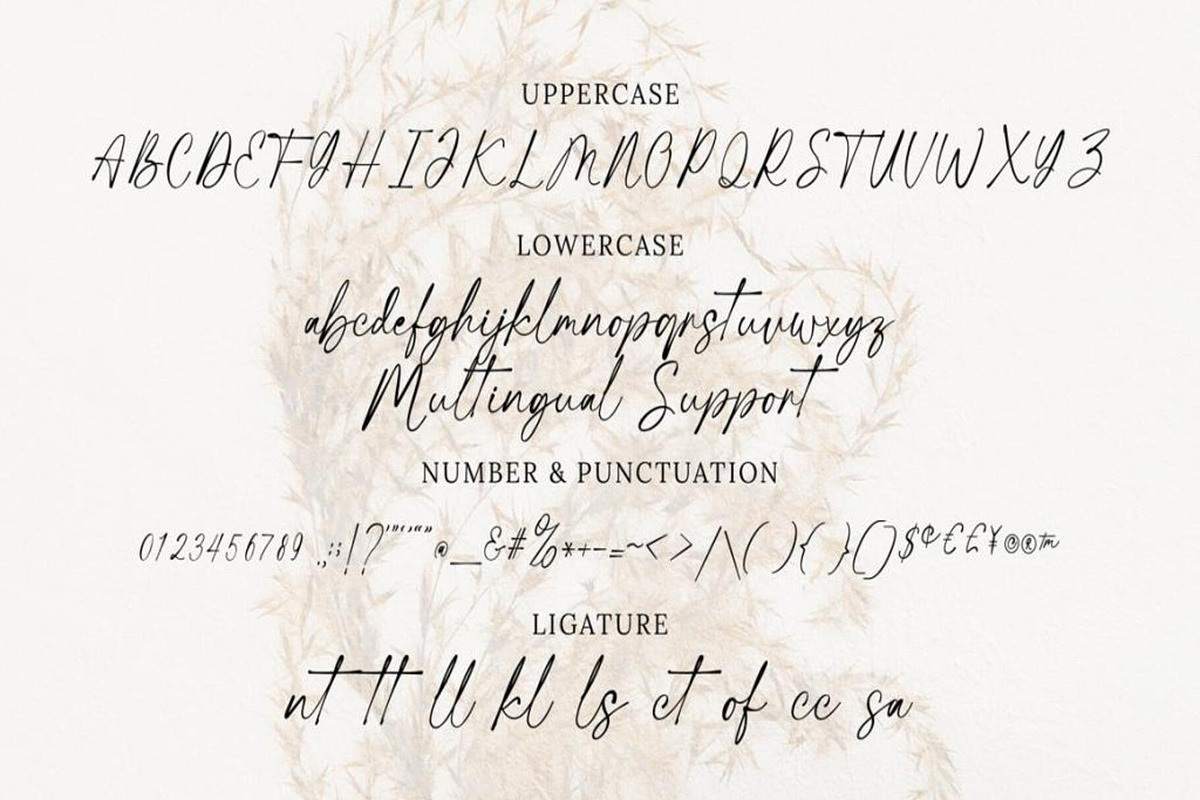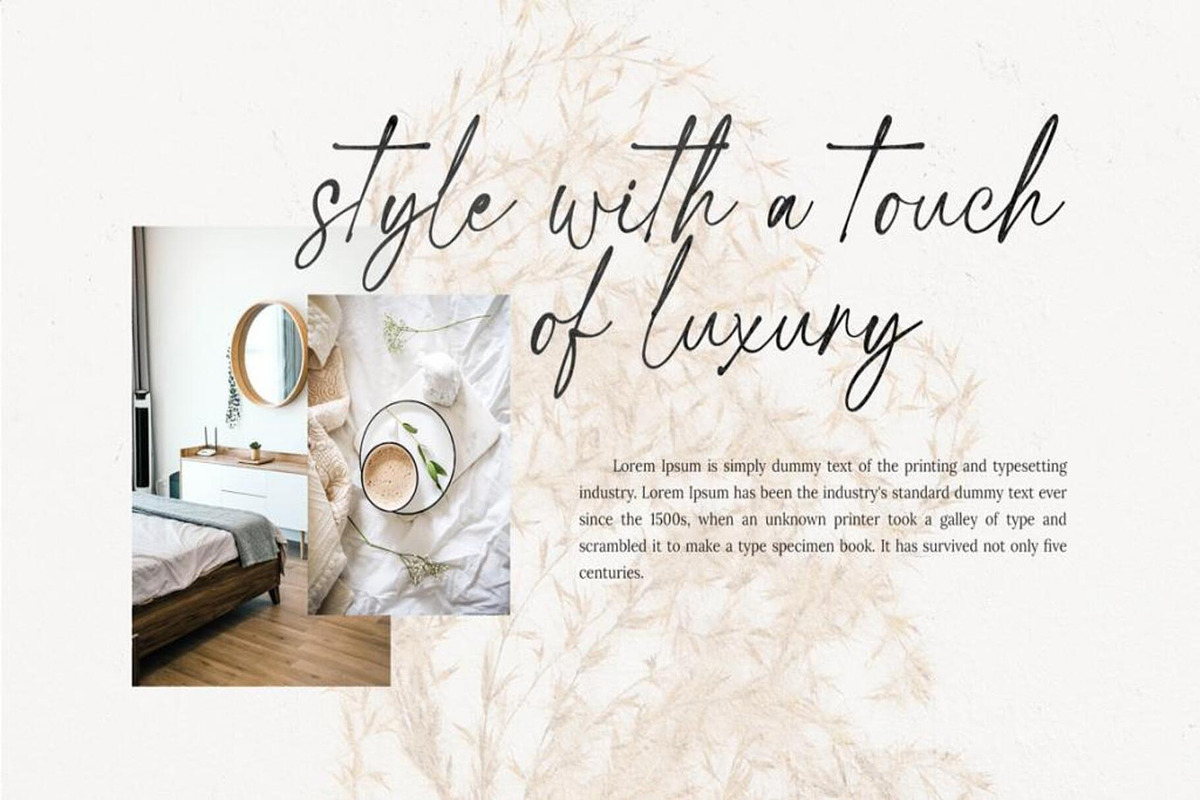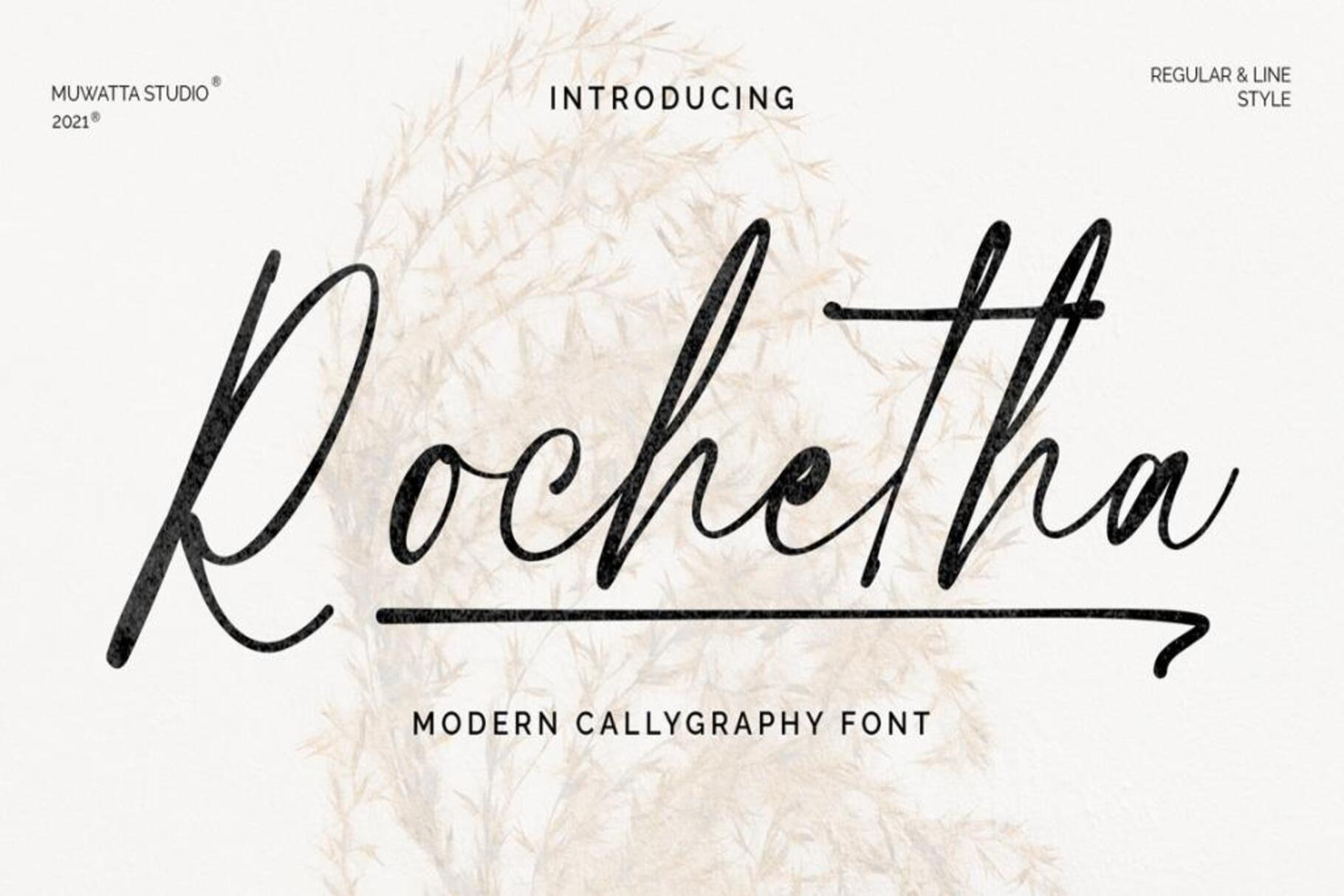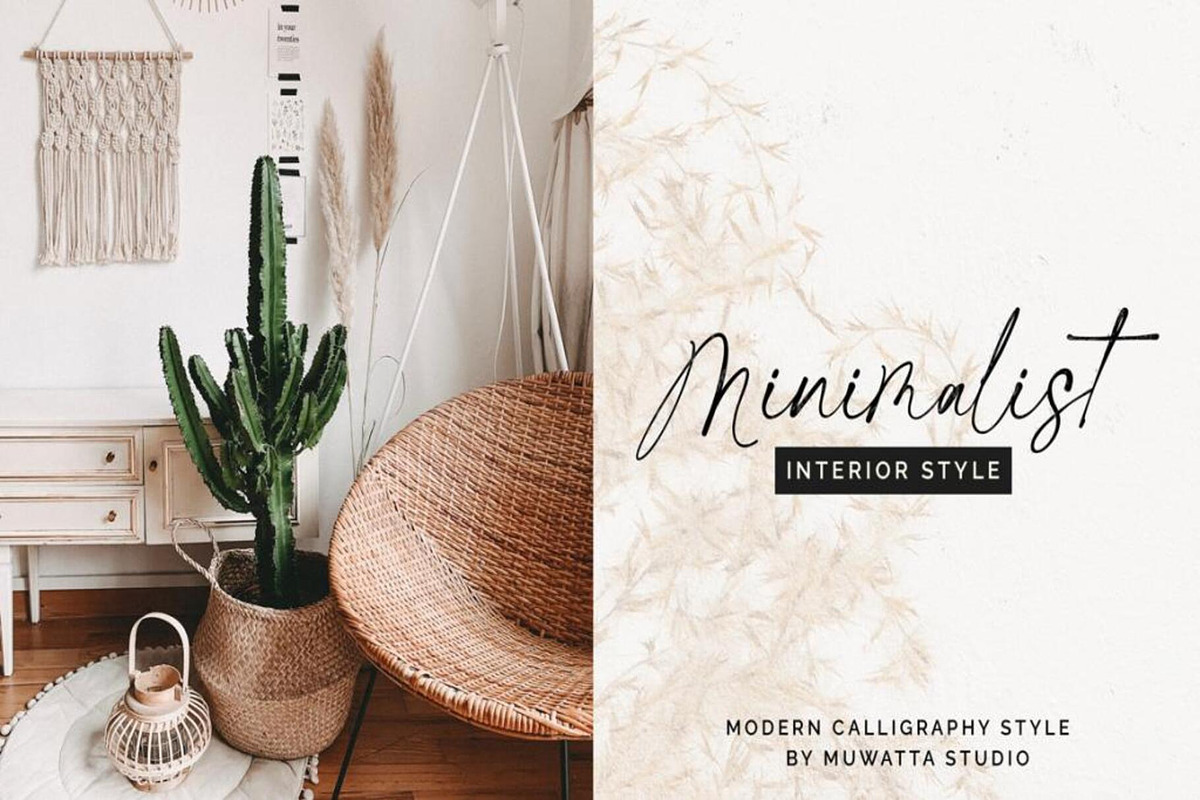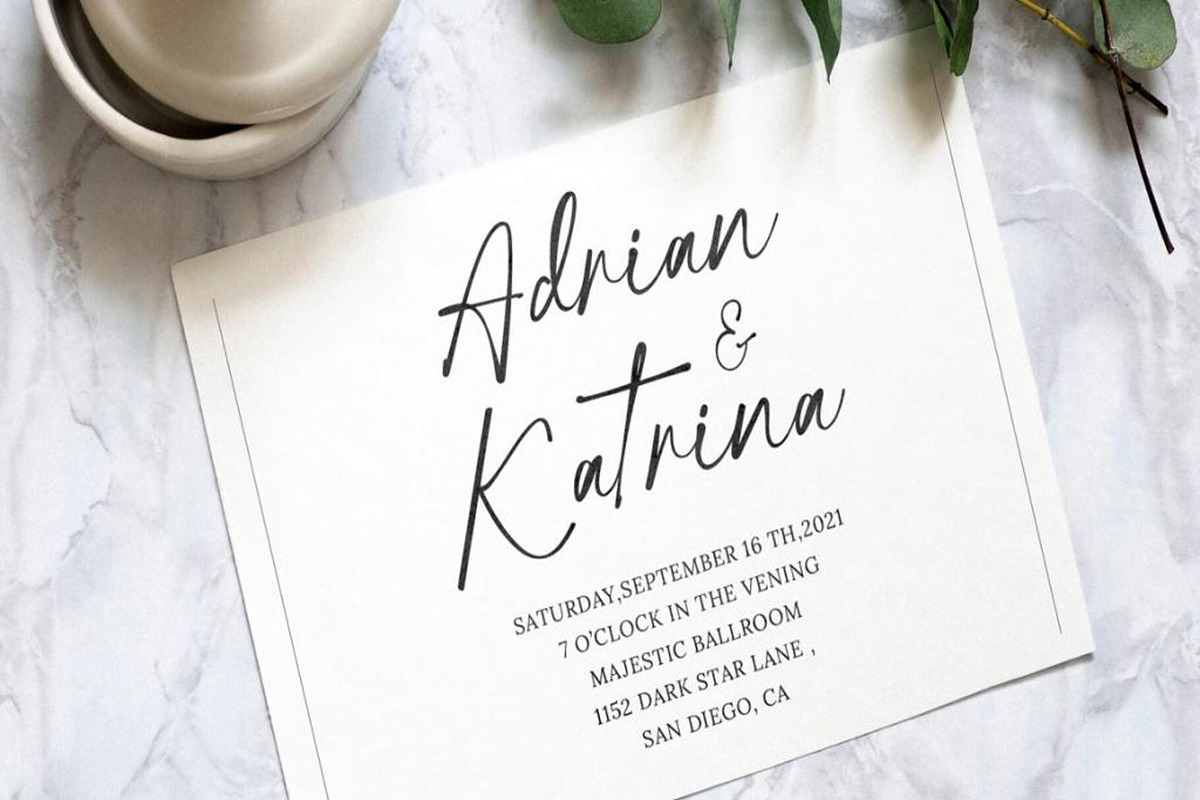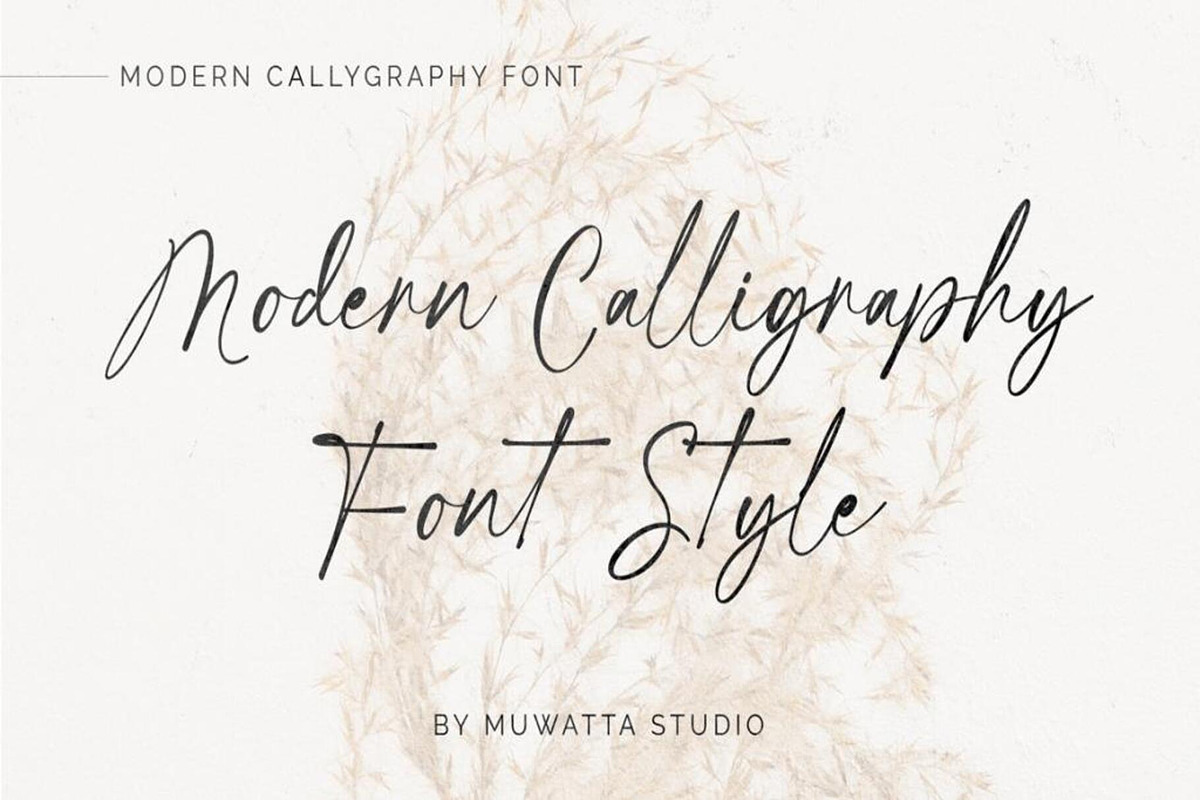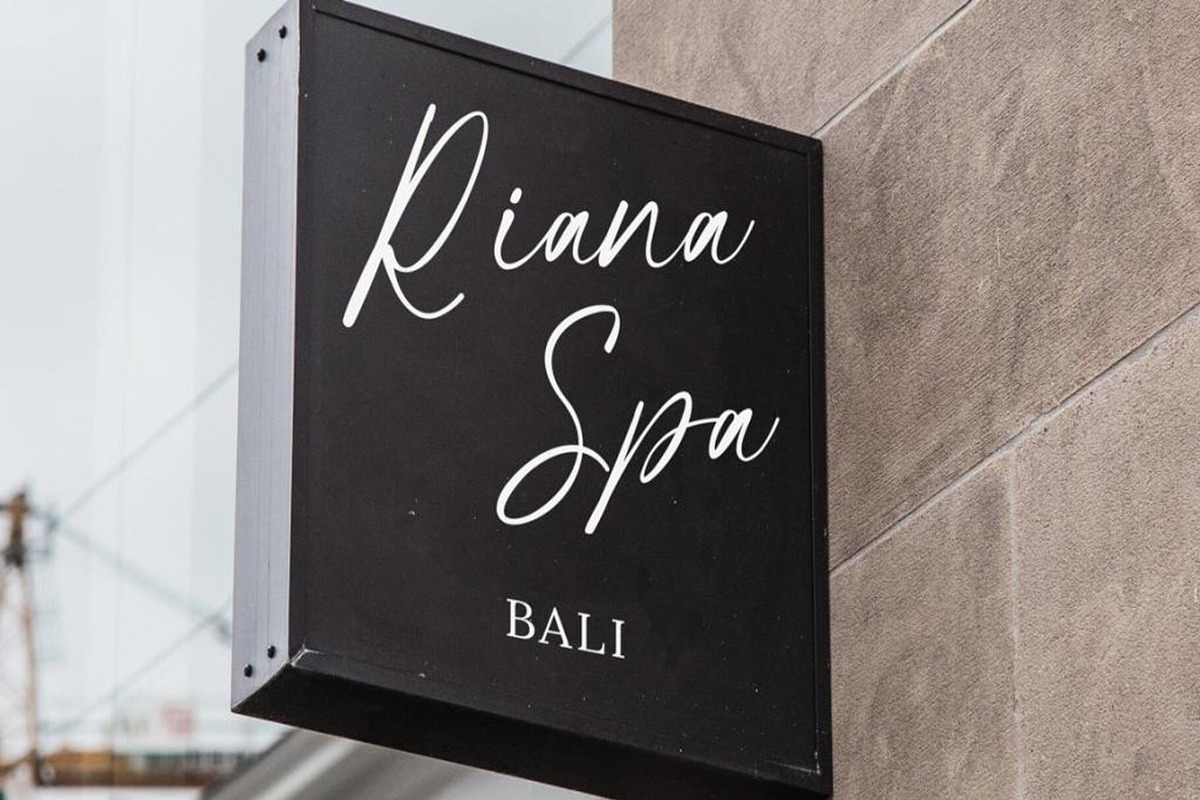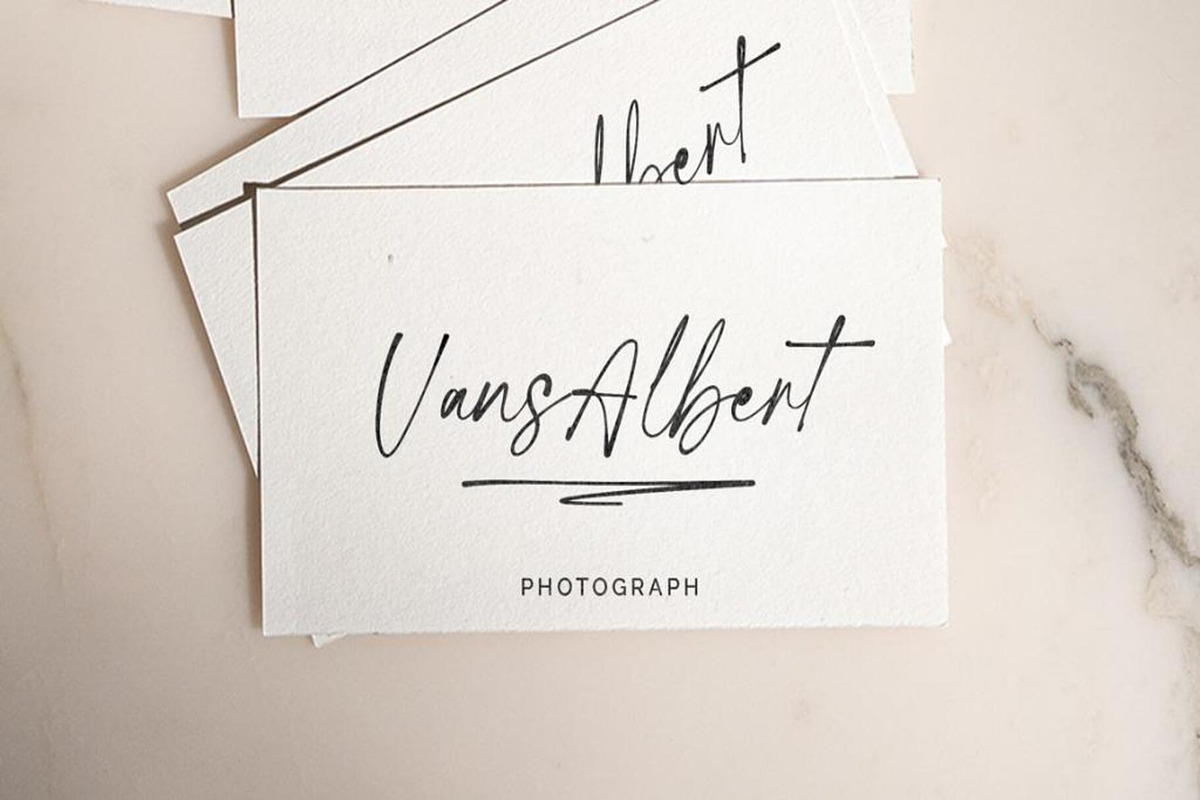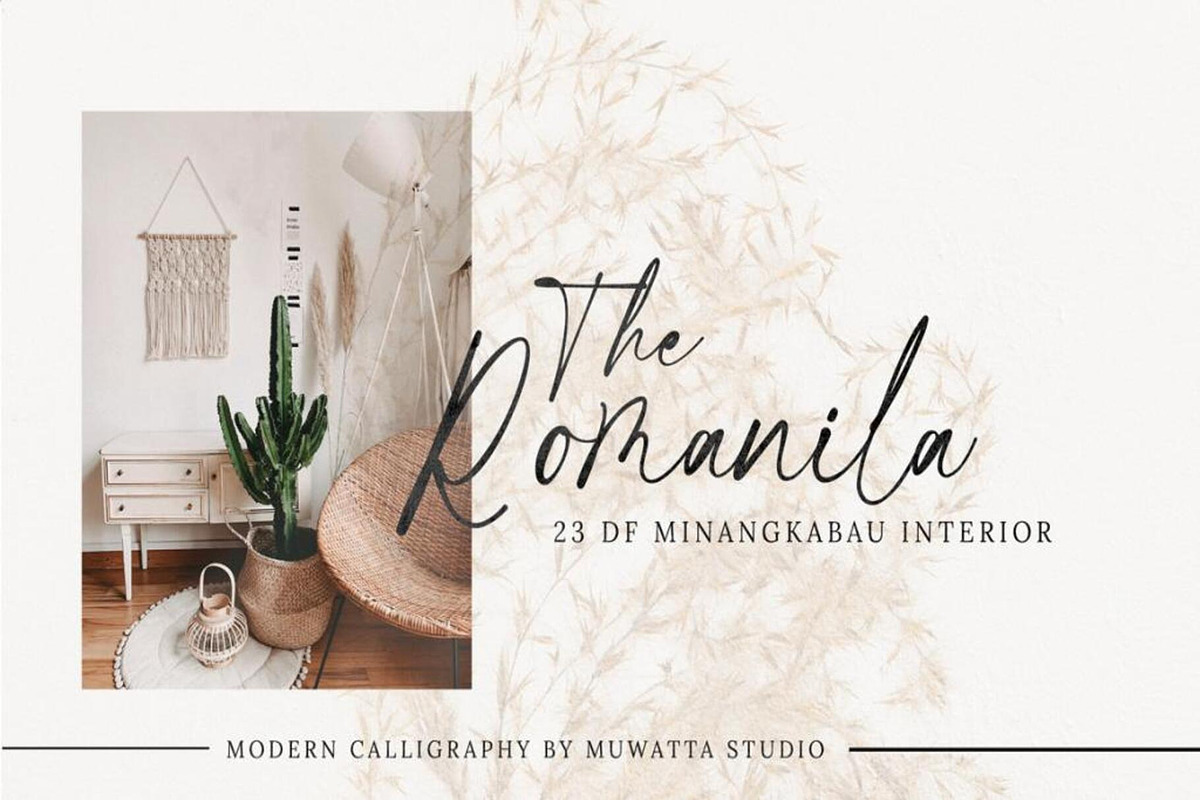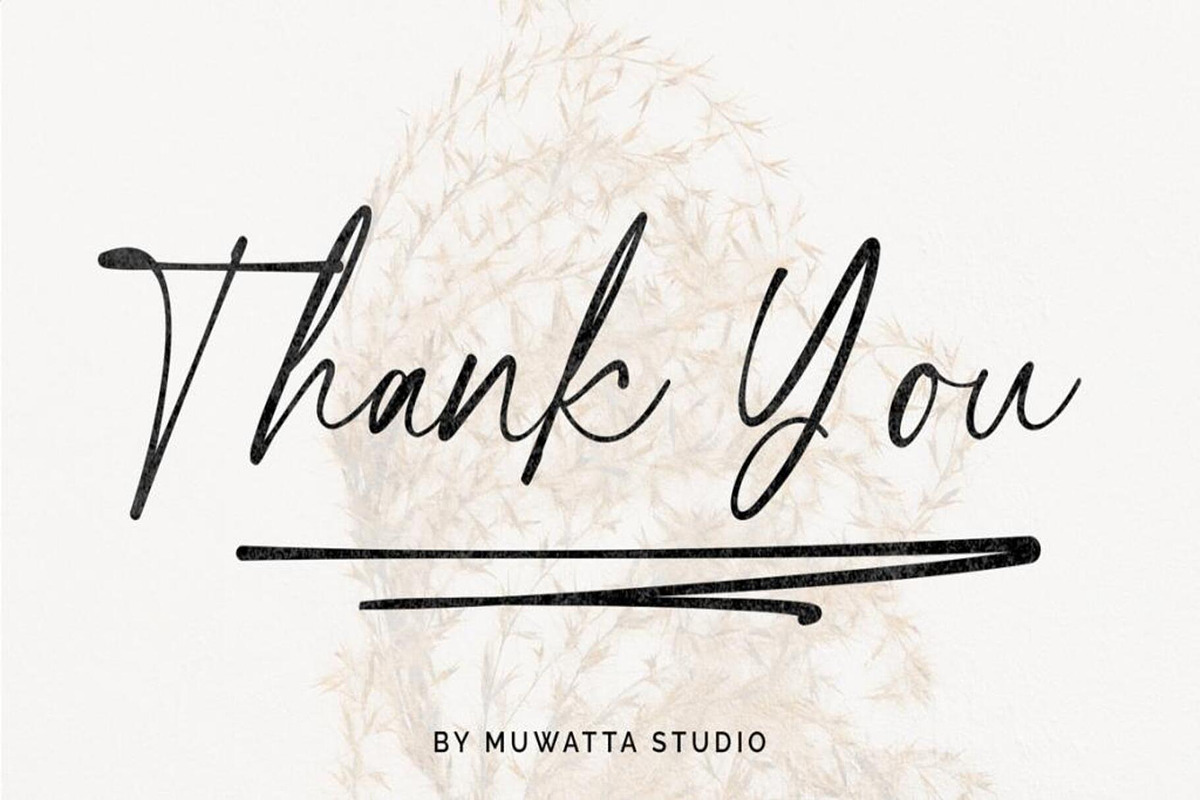
Rochetha Signature Font
Rochetha is a magical script font carefully created with a touch of elegance. Whether you’re looking for fonts for Instagram or calligraphy scripts for DIY projects, this font will turn any creative idea into a true piece of art!
Included in this set: -Full alphabet with Uppercase and Lowercase A-Z for script -Numbers for all fonts -Punctuation and symbols for all fonts -Alternates Lowercase script -Multilingual support all fonts